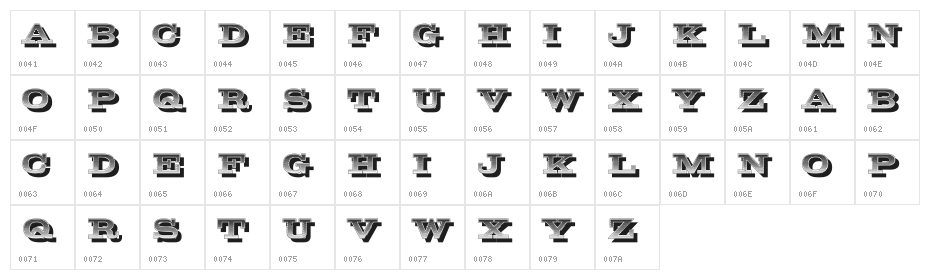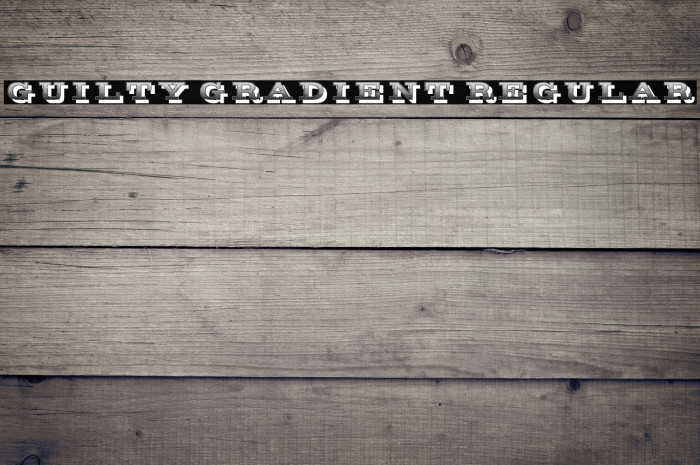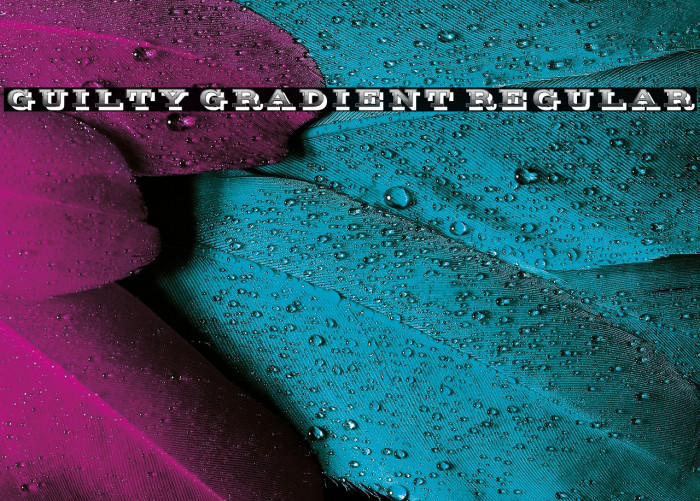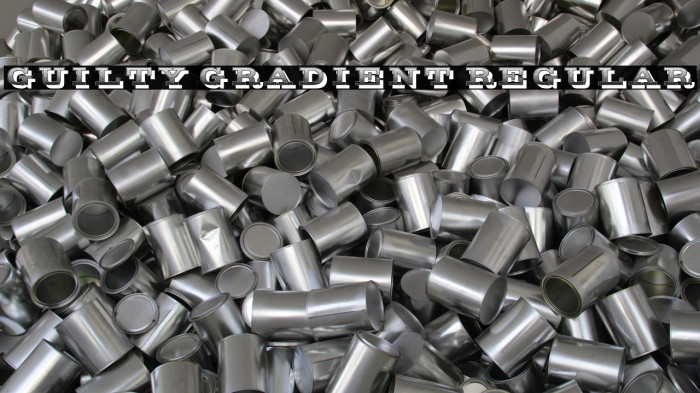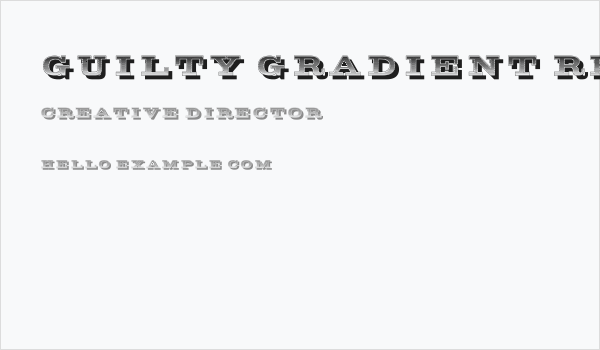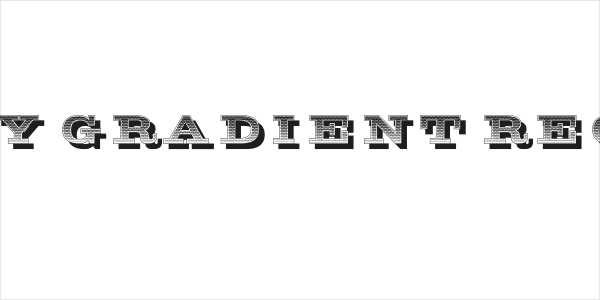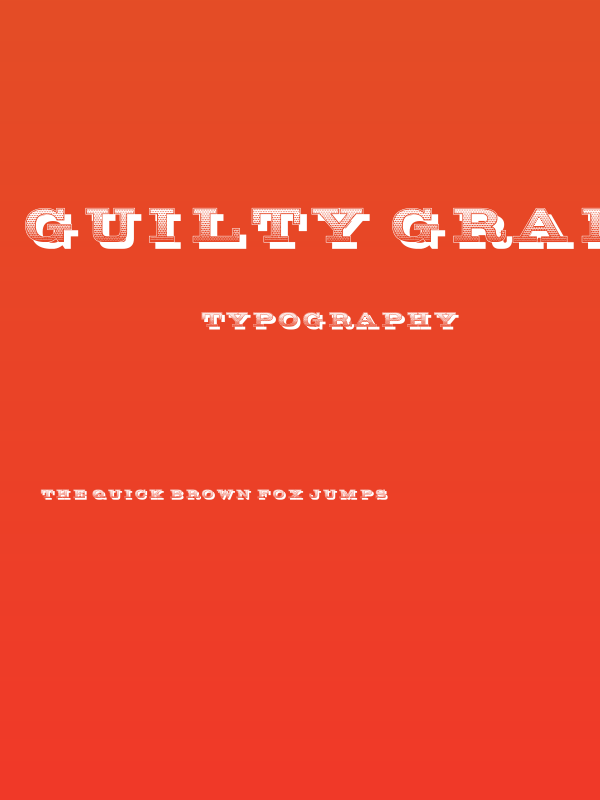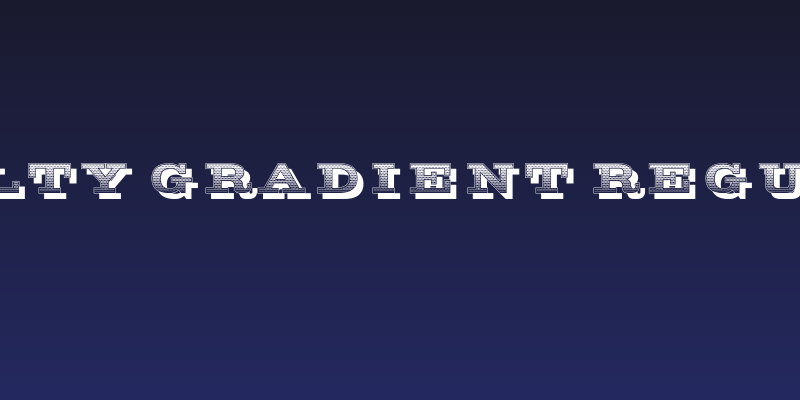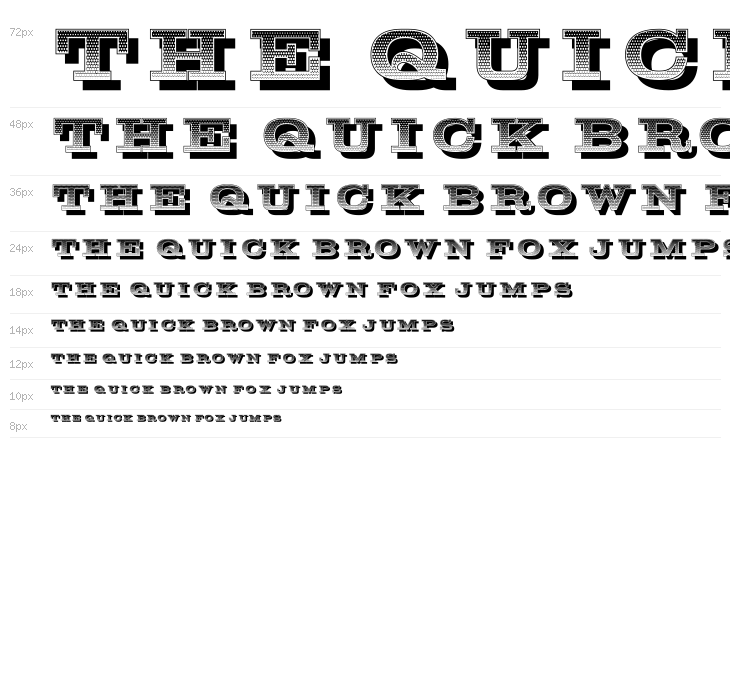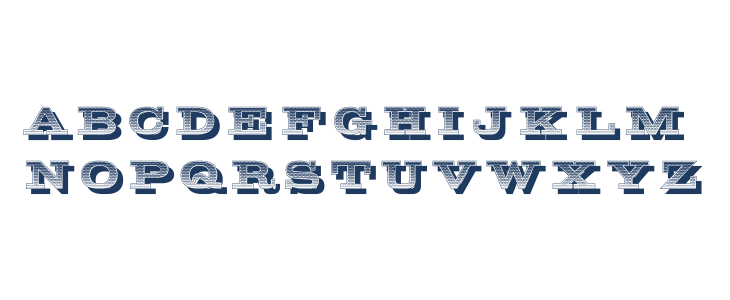
Guilty Gradient Regular Font
Guilty Gradient Regular Description
This font features a bold and decorative style with a distinct gradient effect that gives it a three-dimensional appearance. The characters are all uppercase, with a strong, slab serif design that adds a sense of solidity and impact. The gradient shading within each letter creates a layered look, enhancing the visual interest and making it stand out. The font's structure is robust, with thick strokes and sharp edges, making it suitable for attention-grabbing headlines or titles. Its unique style combines traditional serif elements with a modern twist, making it versatile for various design projects.
| Proposed Projects | Ideal for posters, logos, branding, and any design requiring a strong visual impact. |